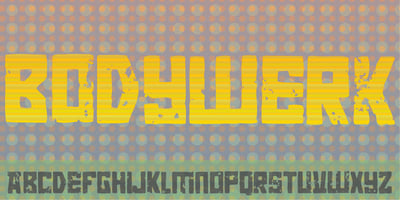
Bodywerk
Bodywerk Font Family was designed by Jakob Fischer and published by PizzaDude.dk. Bodywerk contains 1 styles and family package options. Bodywerk is a futuristic looking font, but worn and torn! The font has got more than 200 ligatures – including double letter and number substitution – along with a huge load of most common letter combinations! You will need to use OpenType supporting applications to use the autoligatures.